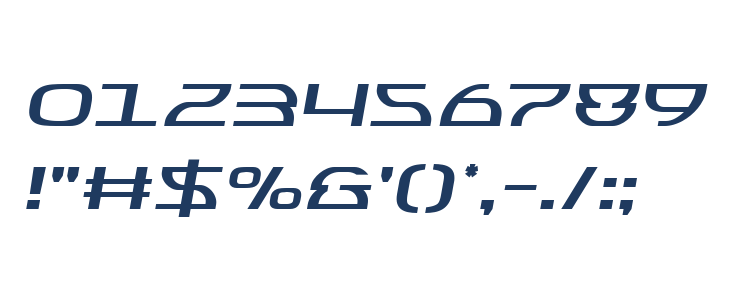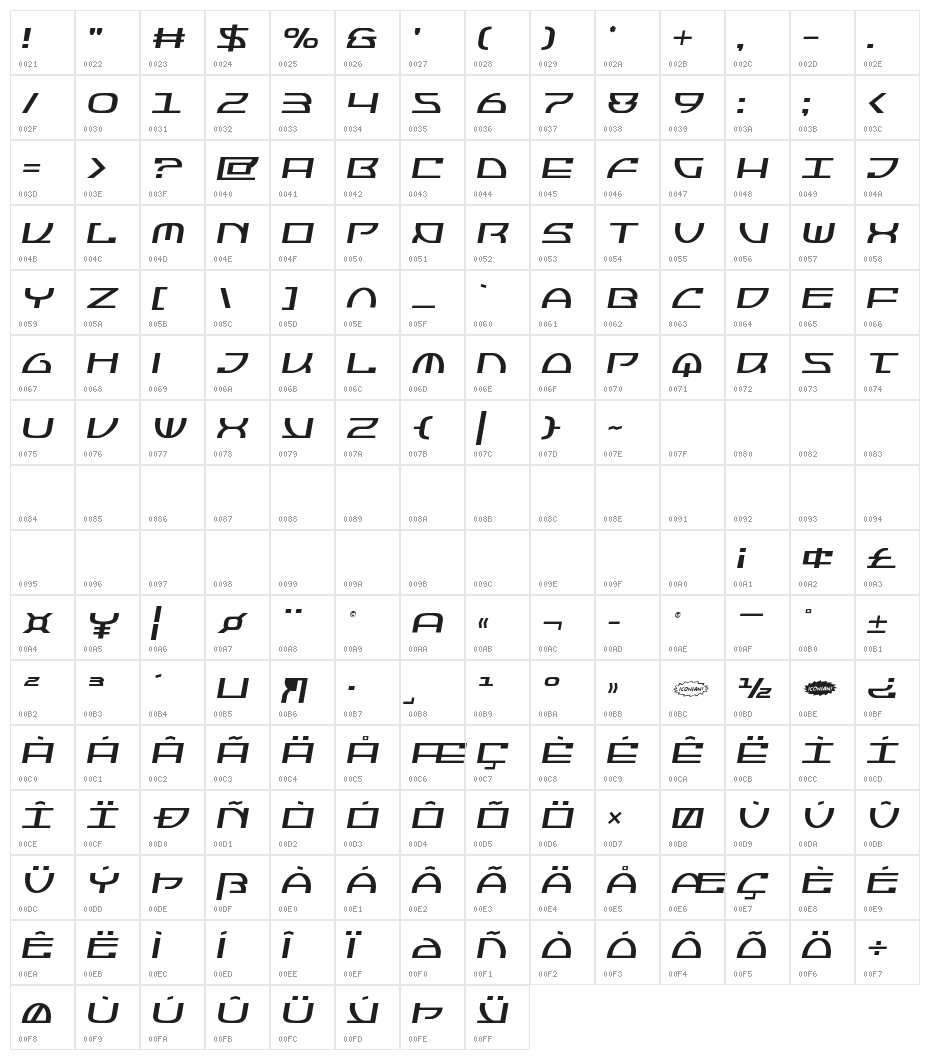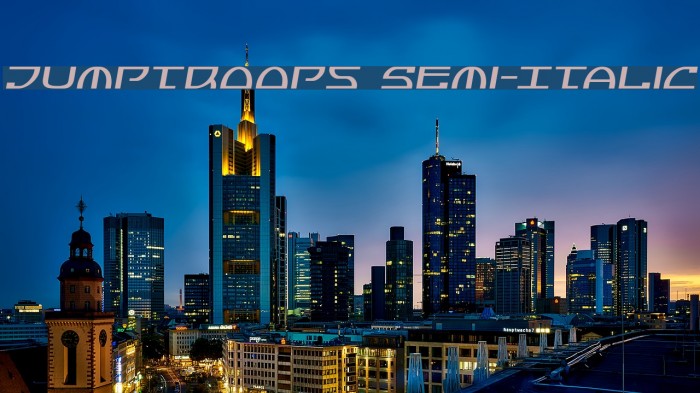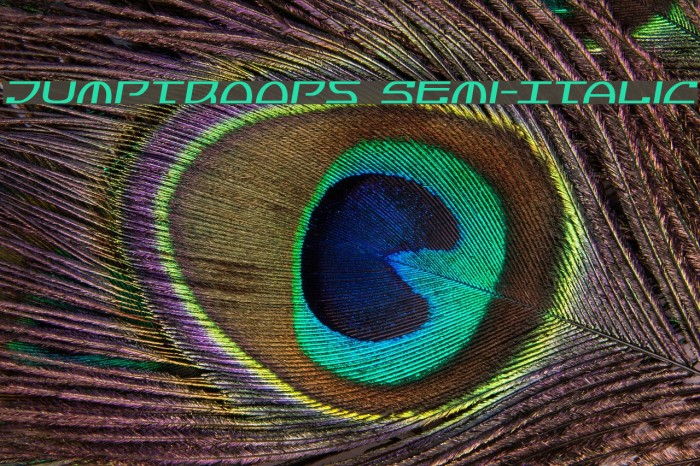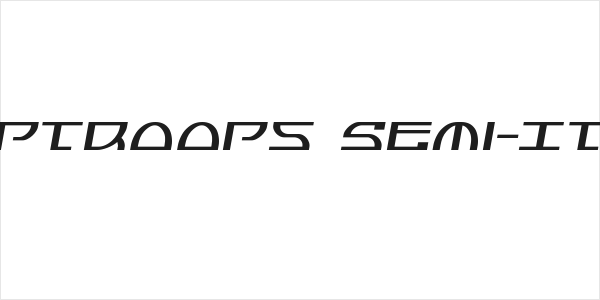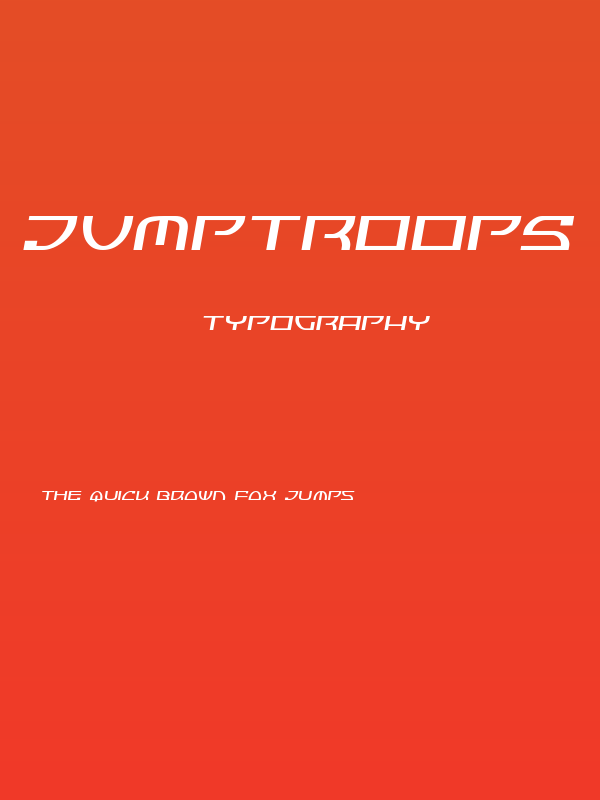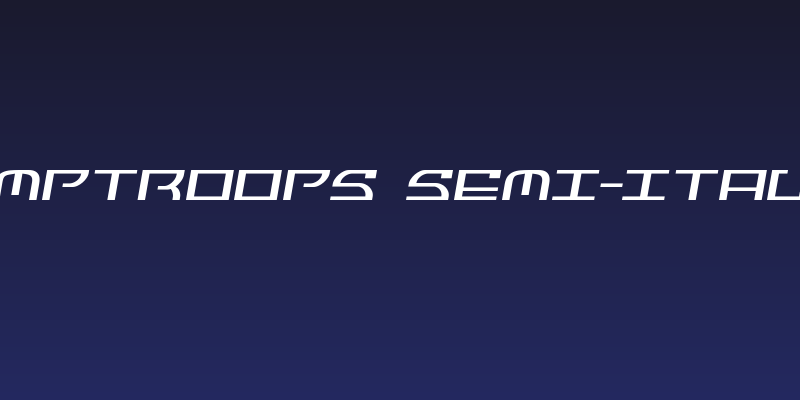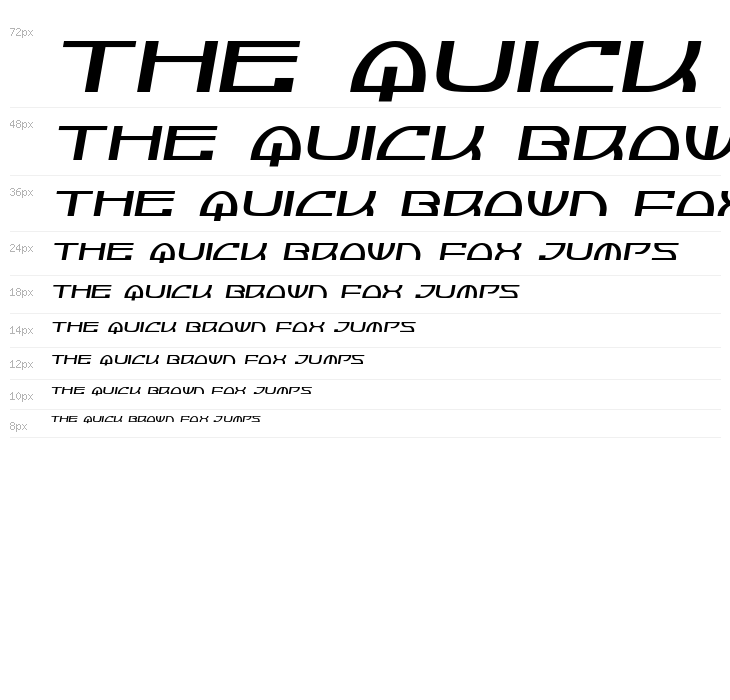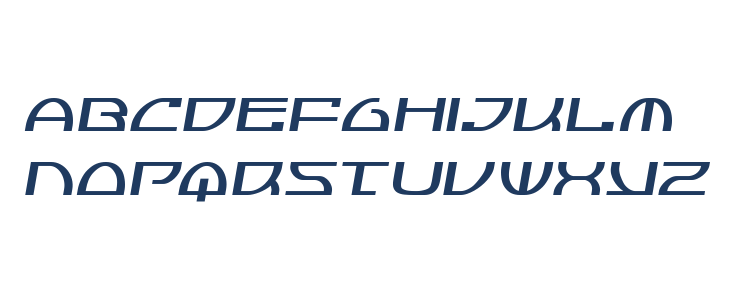
Jumptroops Semi-Italic Font
Jumptroops Semi-Italic Description
This font features a futuristic and dynamic design with a semi-italic slant, giving it a sense of motion and speed. The characters are bold and angular, with sharp edges and a geometric structure that conveys a modern and tech-savvy aesthetic. The uppercase and lowercase letters maintain a consistent style, with some unique variations in the lowercase set that add visual interest. The numerals are equally bold and follow the same angular design, ensuring readability and consistency across different uses. Special characters are included, maintaining the font's distinctive style. Overall, this font is eye-catching and suitable for projects that require a modern, edgy look.
| Proposed Projects | Ideal for technology branding, video game titles, sci-fi themed posters, and modern advertising campaigns. |